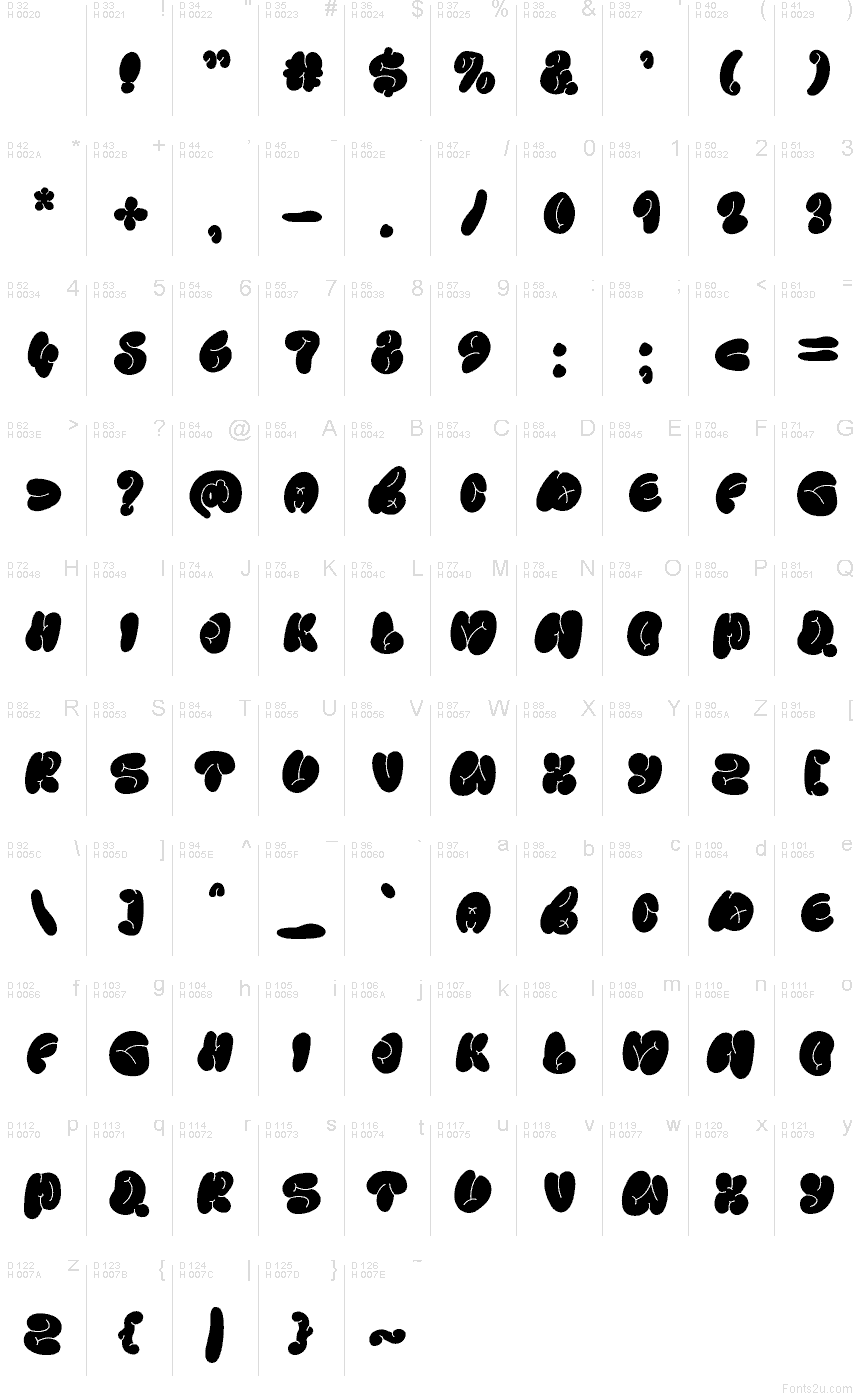
Rousael by Yumna Creative is a free bubble graffiti display font built from swollen, tightly packed forms. Rounded masses shape the letters, with fine white cuts suggesting quick marker highlights and a lively hand-drawn finish.
It can push streetwear branding toward a raw mural look, yet the soft curves also suit playful food packaging. The compact, blobby lettering turns music posters and event graphics into part of the artwork instead of neutral copy. Children's entertainment and sticker designs offer another fitting home for its inflated shapes.